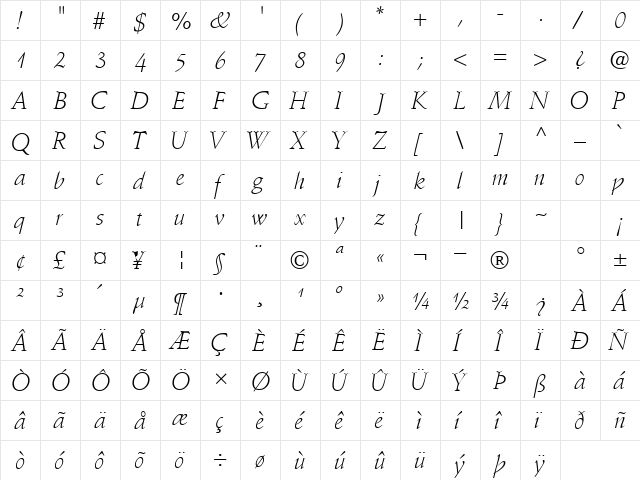
DeutchLightSSK Italic
Design Context for DeutchLightSSK Typeface
DeutchLightSSK is a composed and adaptable typeface that performs quietly and consistently across a wide range of design contexts. Its italic angle brings a sense of urgency and motion to the letterforms. The delicate stroke weight brings airiness and refinement to layouts.
Pro Tip: Try DeutchLightSSK for annotation and caption copy alongside an upright companion — the contrast in angle creates a dynamic but ordered typographic system.